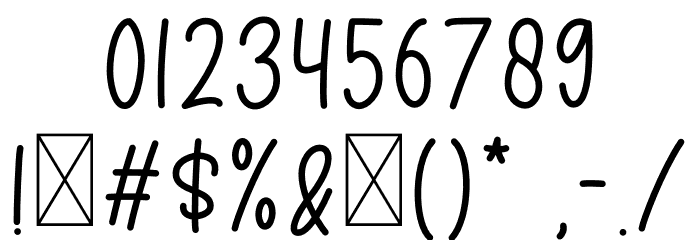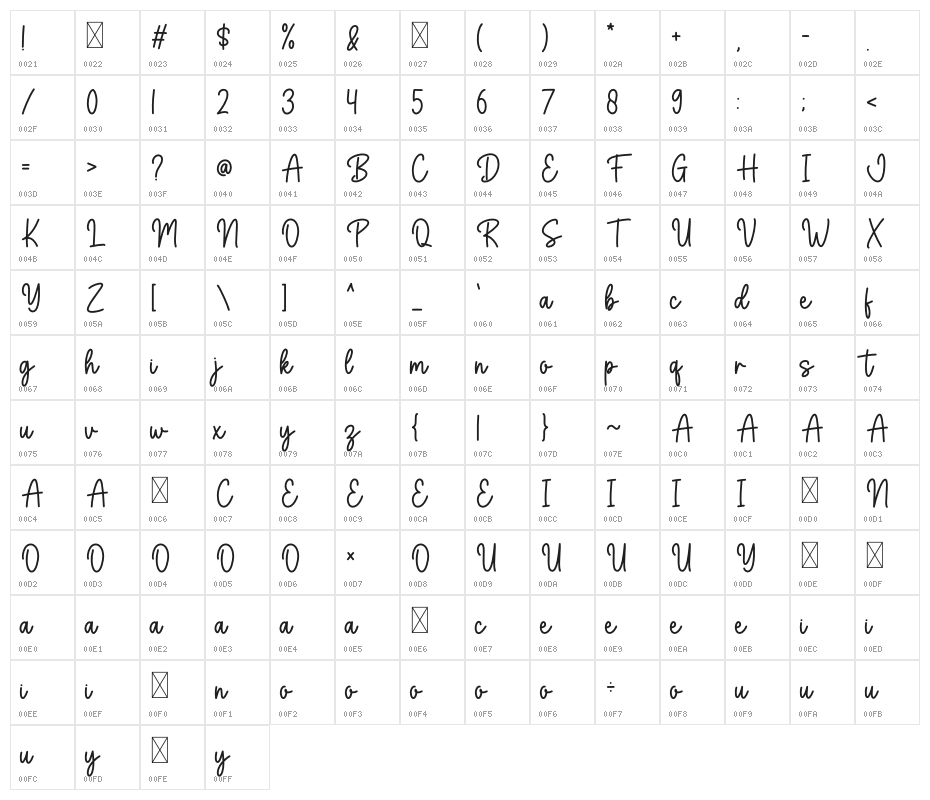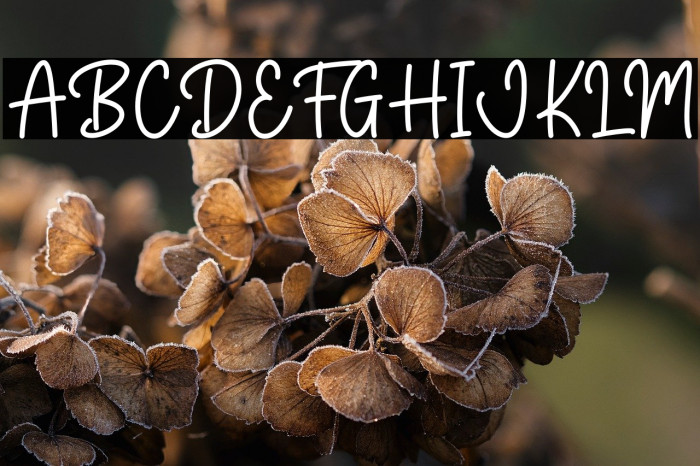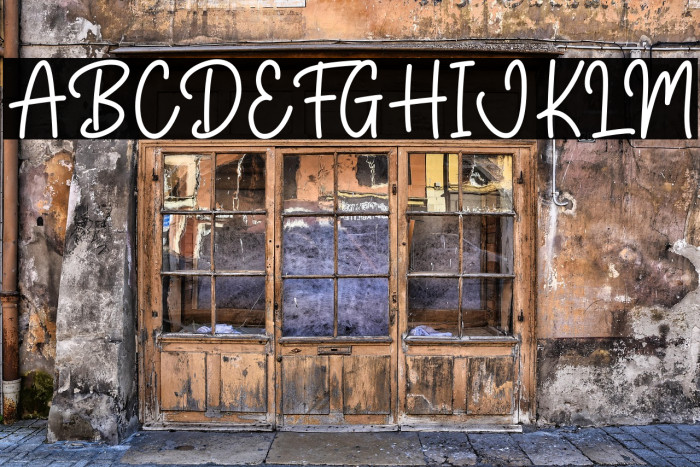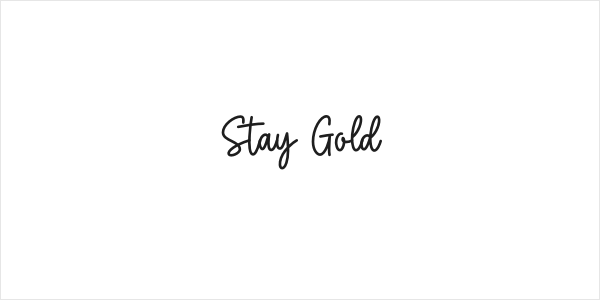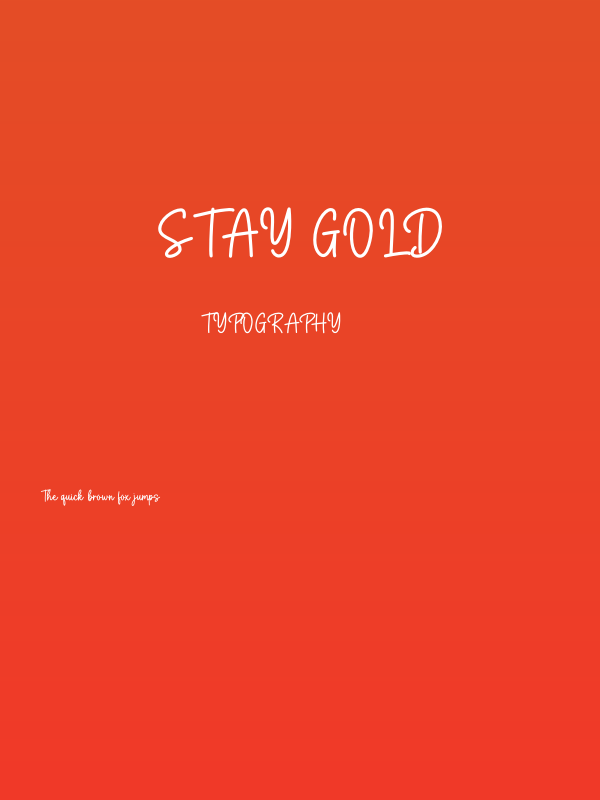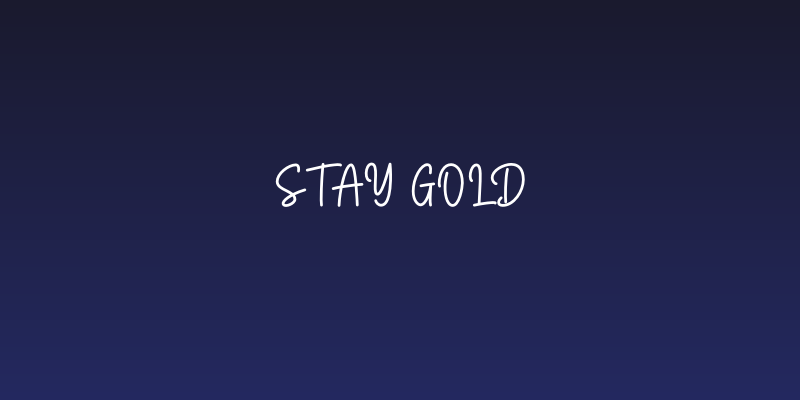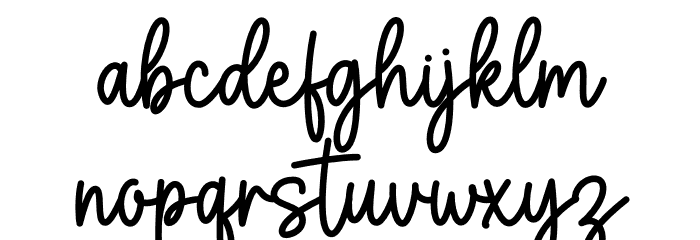
Stay Gold Font
Stay Gold Description
This font features a playful and casual handwritten style, characterized by its smooth, flowing lines and slight slant. The uppercase letters are tall and slightly narrow, giving a sense of elegance and sophistication, while the lowercase letters maintain a consistent rhythm with rounded forms and open counters. The numerals are clear and legible, matching the overall aesthetic with their rounded and slightly elongated shapes. Special characters are well-integrated, maintaining the font's cohesive look. This font exudes a friendly and approachable vibe, making it suitable for a variety of creative projects.